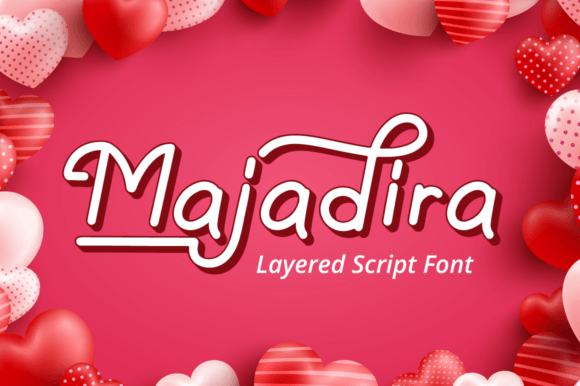
Unleash the Enchantment of Majadira: Where Romance Blossoms and Dreams Take Flight
Prepare to be captivated by Majadira, a script font family that weaves a magical spell on your digital creations. Crafted by the talented team at attypestudio, Majadira's beauty lies in its intricate details, graceful lines, and inherent versatility. Dive into two distinctive versions – Regular and Extrude – that, when harmoniously combined, bestow your designs with an astounding 3D effect that leaps off the page.
With Majadira, your designs will radiate an aura of elegance and sophistication. Let your imagination soar as you conjure enchanting wedding invitations, posters that speak of love and joy, or banners that announce special occasions with a touch of enchantment. Majadira's essence is perfectly attuned to the language of romance, making it the ideal choice for Valentine's Day designs. Its presence adds a layer of charm and allure that captures hearts and ignites passions.
Journey into the realm of creativity and let Majadira unveil your artistic potential. Its versatility knows no bounds, allowing you to craft captivating logos, social media posts that sparkle with personality, and branding materials that exude a sense of timeless elegance. Whether you seek to evoke a sense of nostalgia or create a futuristic masterpiece, Majadira's versatility empowers you to weave your creative tapestry with boundless possibilities.
Step into a world where imagination meets reality, where Majadira transforms your designs into visual symphonies. Let its delicate strokes and enchanting curves captivate your audience, enchanting them with its effortless grace. With Majadira as your creative companion, you'll unlock a treasure trove of possibilities, leaving an enduring mark on hearts and minds. Immerse yourself in the Majadira experience and watch your designs blossom into captivating works of art.